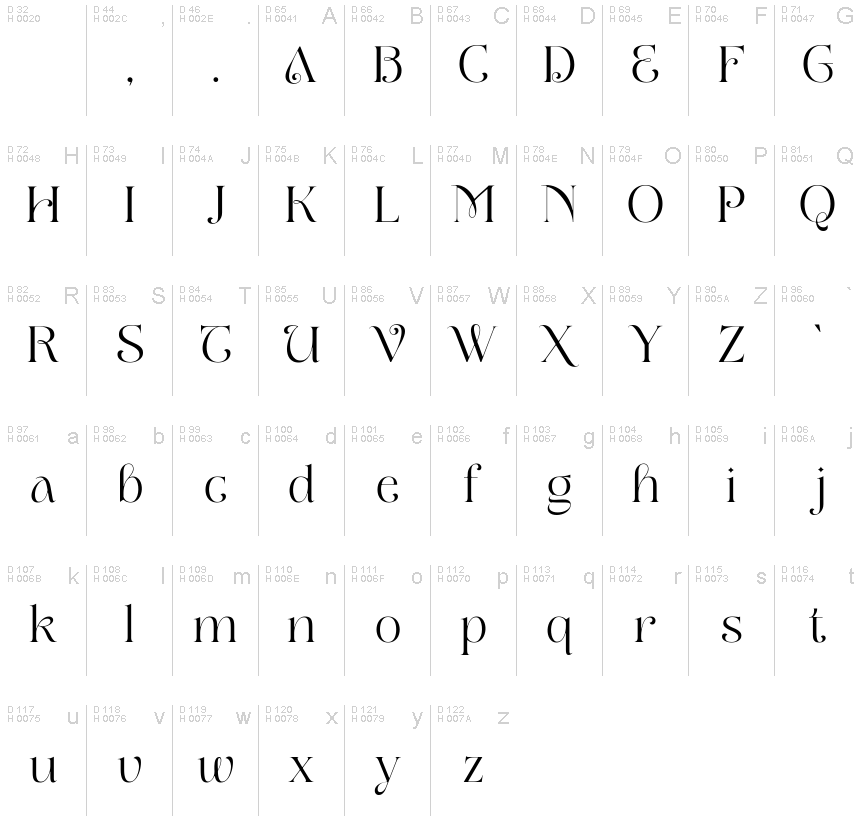
Thinker Historic Regular
Thinker Historic font is a retro serif display typeface created by Handpik. The elegant lines, distinct serifs, and classical features of the font draw attention to the traditional styles that make it unique. A refined balance enriched in details makes each character an asset on its own. Typeface stature also stands out with perfectly presented height and width ratios.